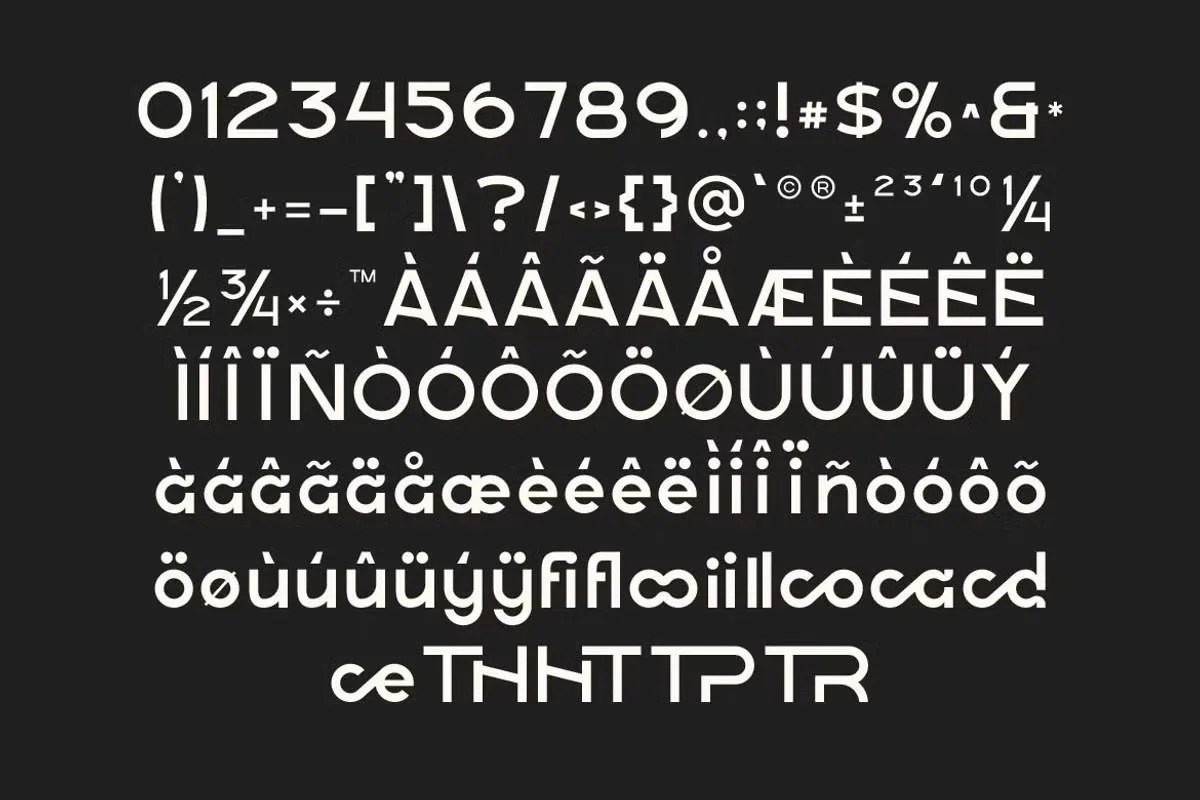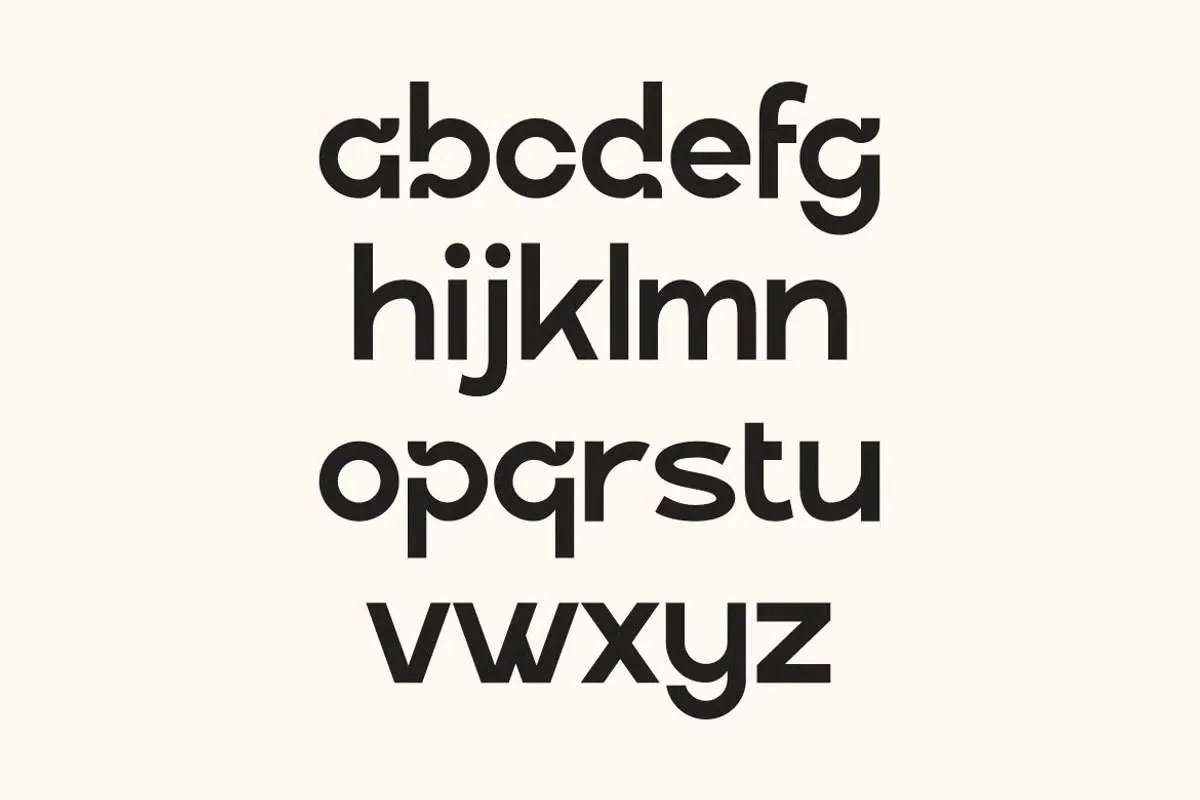
Docade by Artiveko is a modern sans serif font that embodies clean geometry and minimalistic sophistication. With its balanced proportions, crisp edges, and versatile design, it is crafted for designers seeking a professional yet contemporary aesthetic.
Perfect for branding, logos, web design, editorial layouts, posters, and corporate identities, Docade ensures clarity, elegance, and timeless readability across both print and digital projects.
• Modern sans serif with geometric precision
• Sleek, minimal, and professional appearance
• Balanced letter spacing for smooth flow
• Highly legible for headlines and body text
• Perfect for branding, web, and editorial projects
• Ideal for fashion, business, and lifestyle design
• Stylish and versatile for multiple applications
Docade